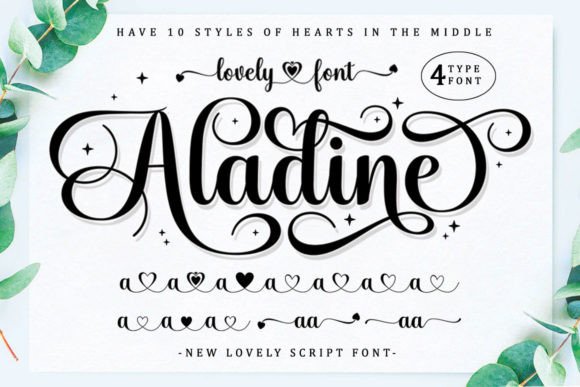
Behold the vision of Aladine, a script font that is a testament to elegance, beauty, and charm. With its intricate curves and delicate strokes, Aladine exudes a sense of grace and sophistication that is unmatched. A true masterpiece created by Reyna Studio, Aladine is a font that is destined to leave an unforgettable impression on your designs.
Immerse yourself in the romantic allure of Aladine and let your creativity soar to new heights. This font is a true labor of love, designed with meticulous care and attention to detail. Each character is a work of art, meticulously crafted to evoke a sense of timeless charm and sophistication.
With its innate grace, Aladine is the perfect choice for a wide range of design projects. From enchanting wedding invitations and elegant restaurant menus to stylish fashion magazines and captivating book covers, Aladine has the versatility to transform your vision into a reality.
Step into the realm of endless possibilities with Aladine, a font that unlocks the gateway to a world of creativity. Whether you're a seasoned designer or just starting your design journey, Aladine will guide you effortlessly, helping you create designs that are both visually stunning and emotionally resonant.